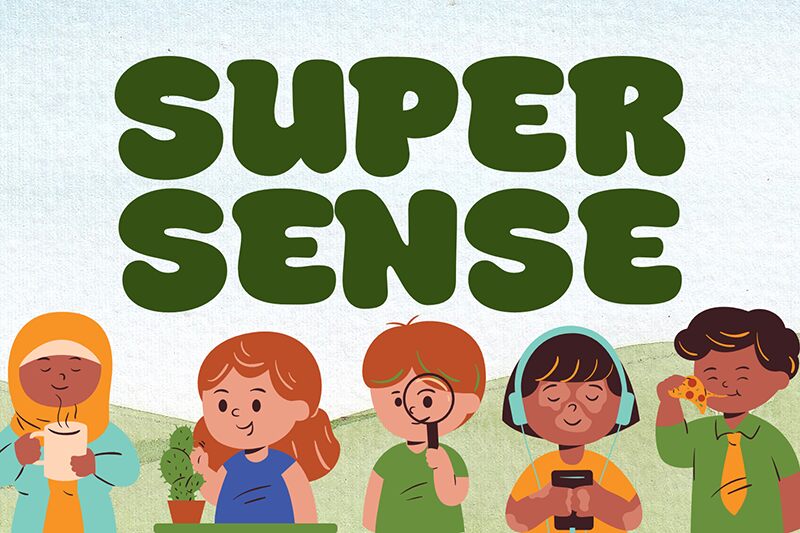
Super Sense font from fsuarez913 is a cartoon display typeface with a friendly and retro-inspired silhouette. The presence of smooth rounded contours, together with the bold appearance, create an engaging type to enjoy in your written messages. Its casual tone helps deliver fun content that can be interesting for children and young adults.